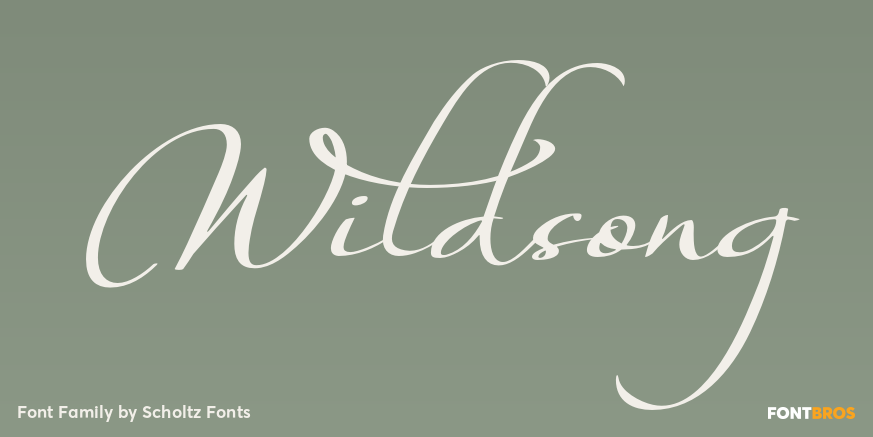
Wildsong
About Wildsong
WildSong was inspired by the exuberant flight and beautiful song of birds. While most brush scripts take their cue from mid-twentieth century samples, WildSong is a fresh, contemporary alternative. WildSong reflects a dynamic interplay between dark and…